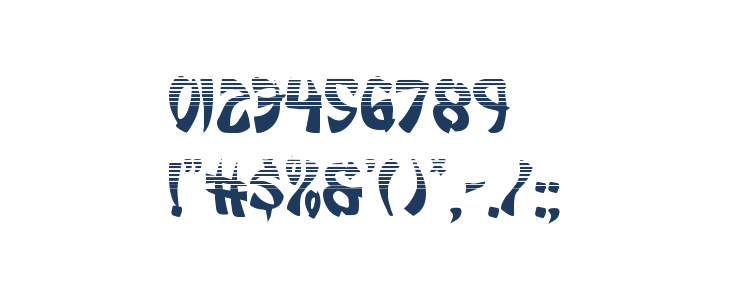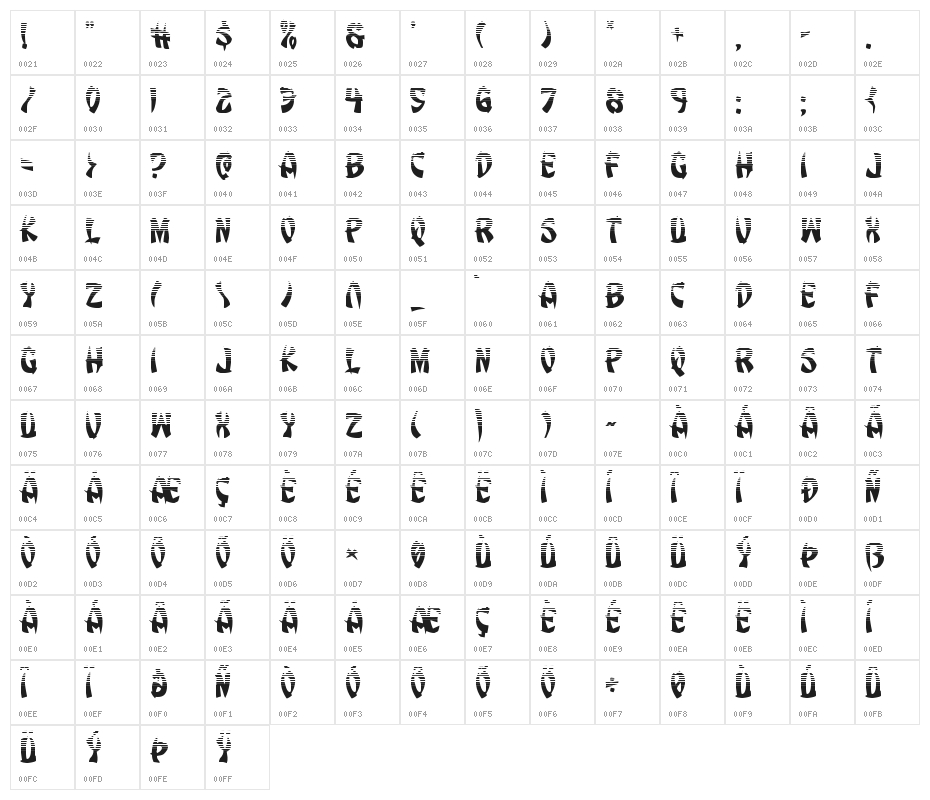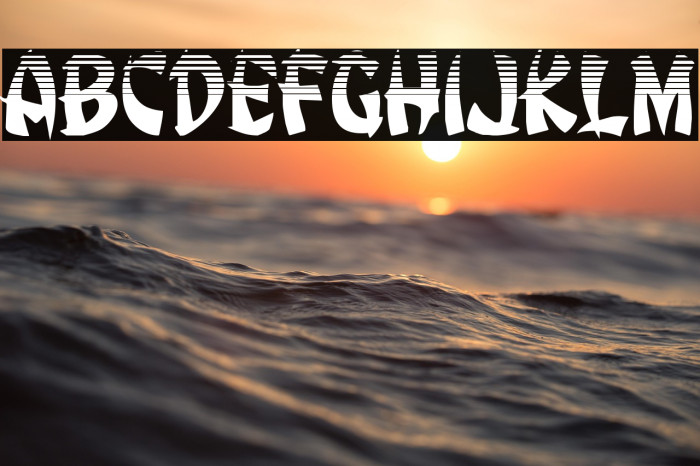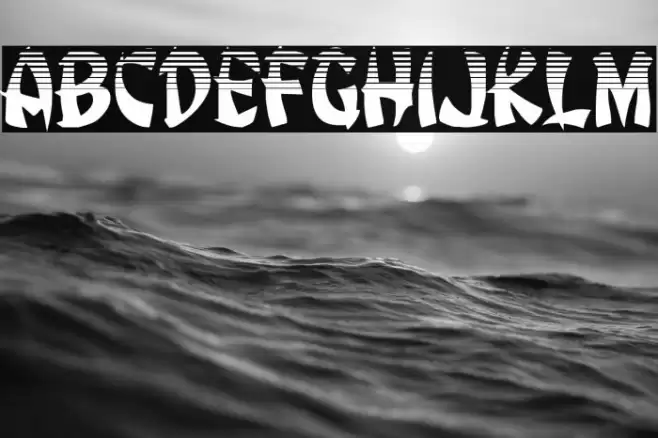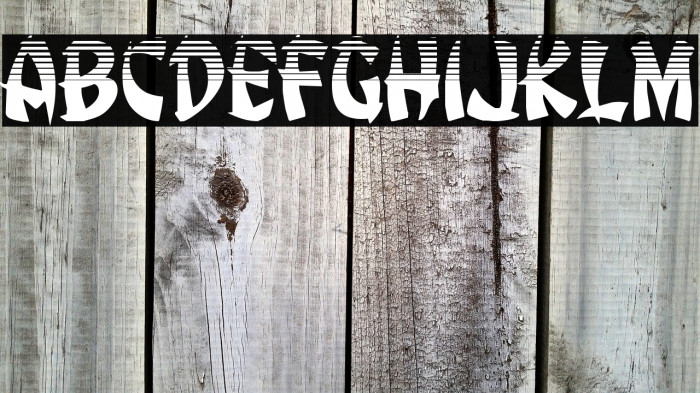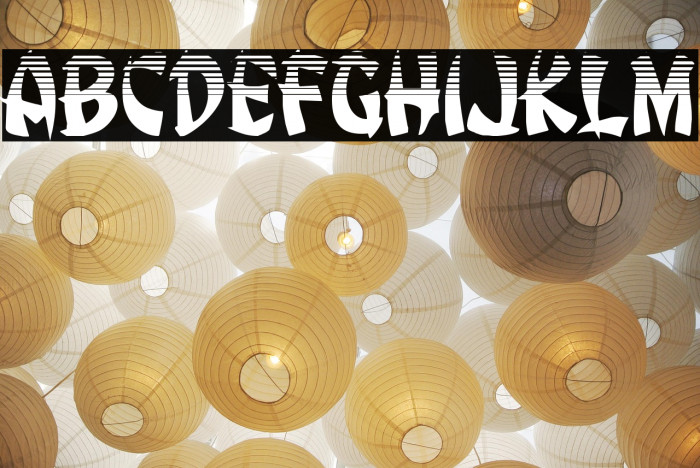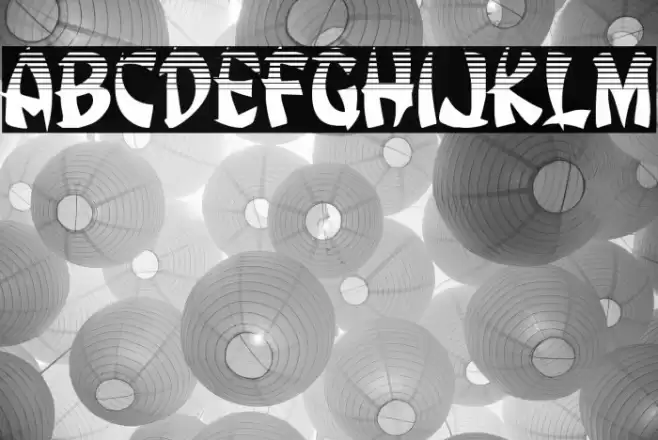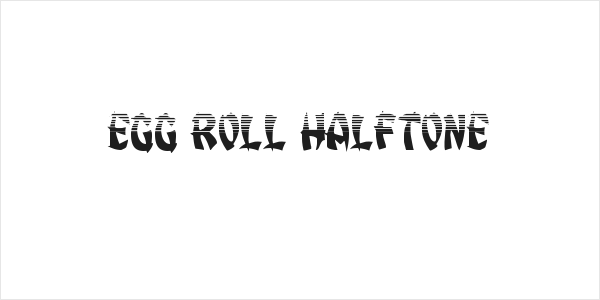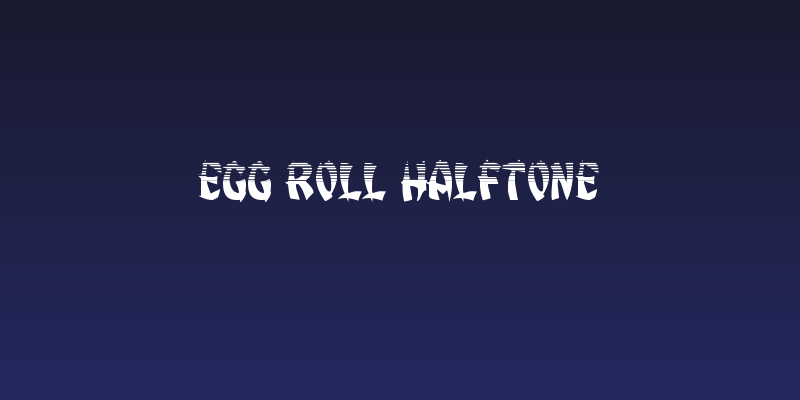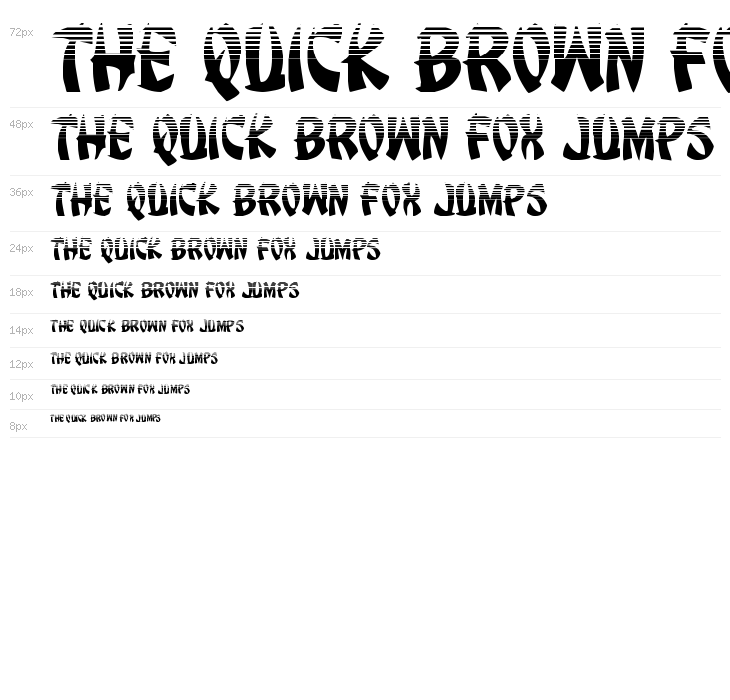
Egg Roll Halftone Font
Egg Roll Halftone Description
This font features a bold and dynamic design with a halftone effect that creates a sense of movement and energy. The characters are thick and robust, with a unique striped pattern that adds depth and texture. The uppercase and lowercase letters maintain a consistent style, while the numbers and special characters complement the overall aesthetic. The font's distinct appearance makes it ideal for eye-catching designs and creative projects.